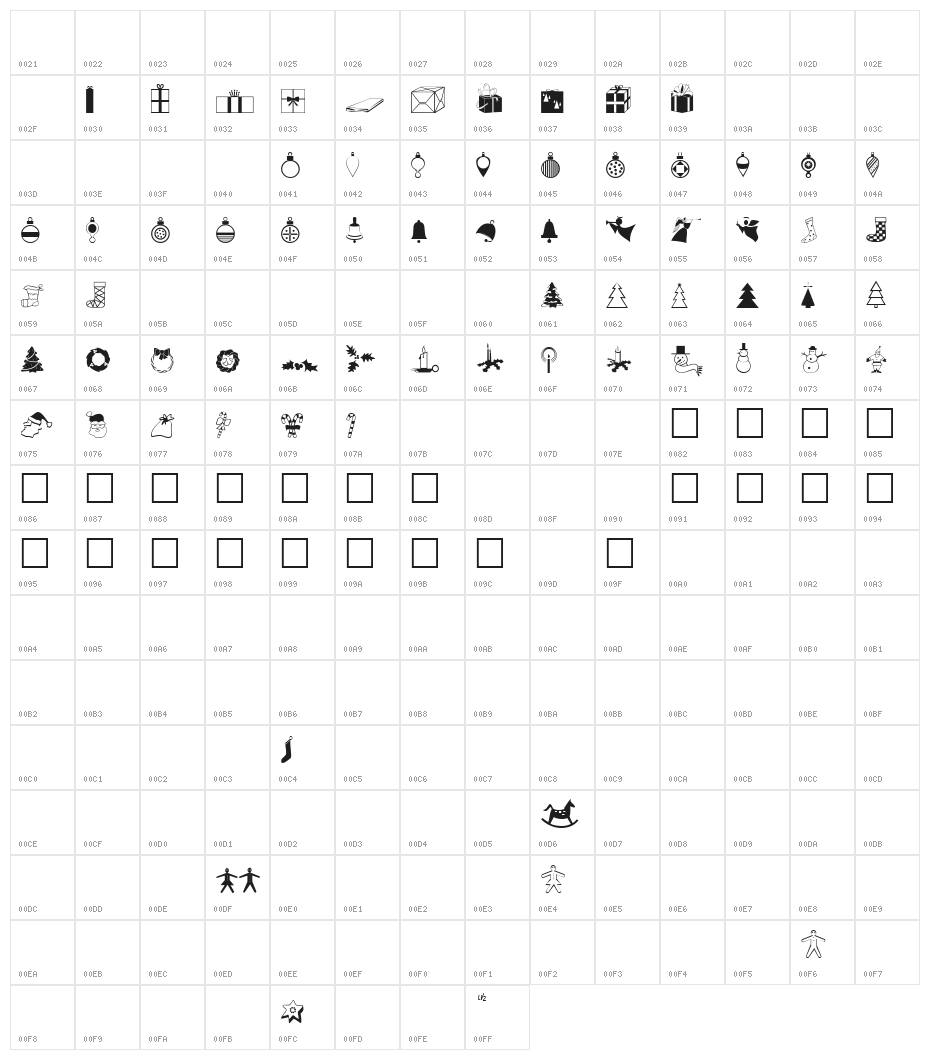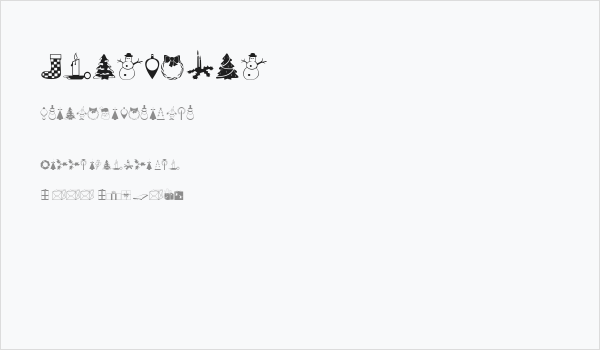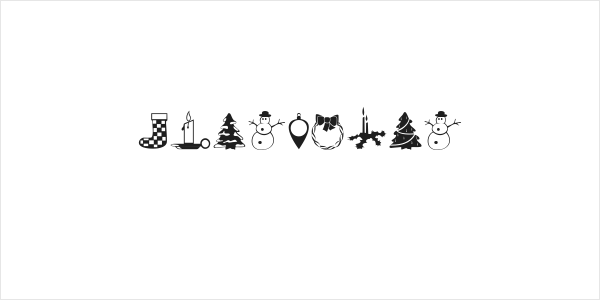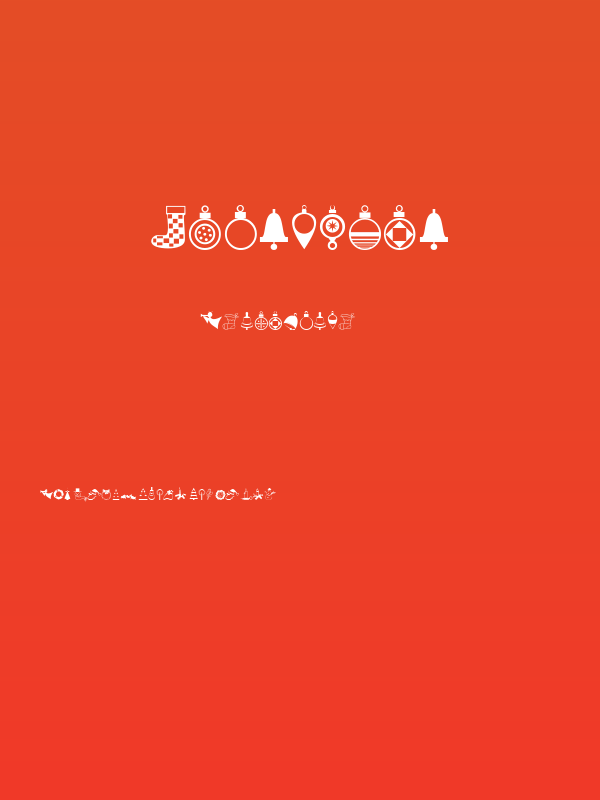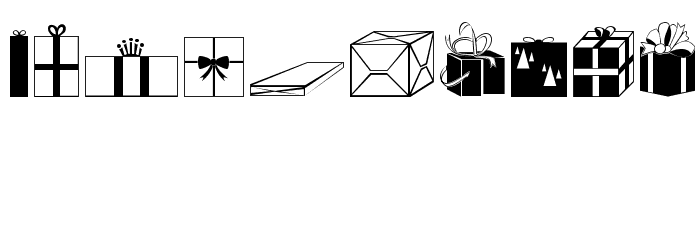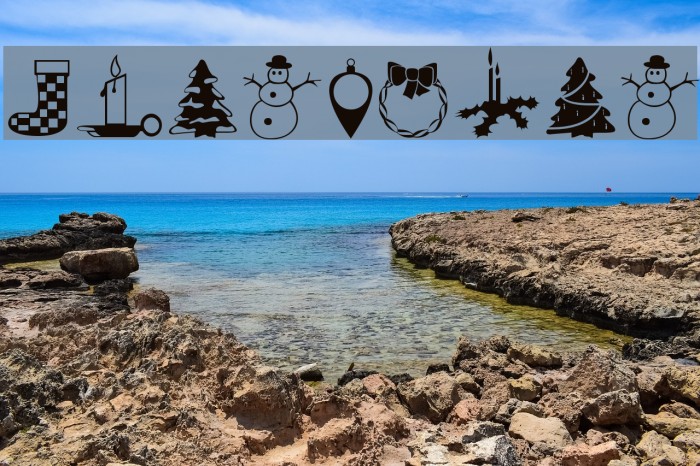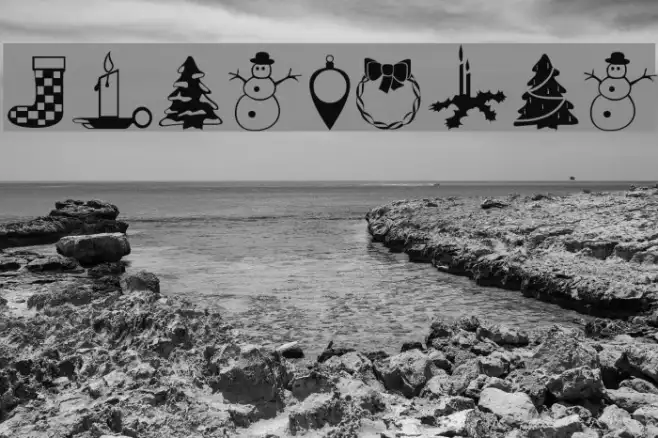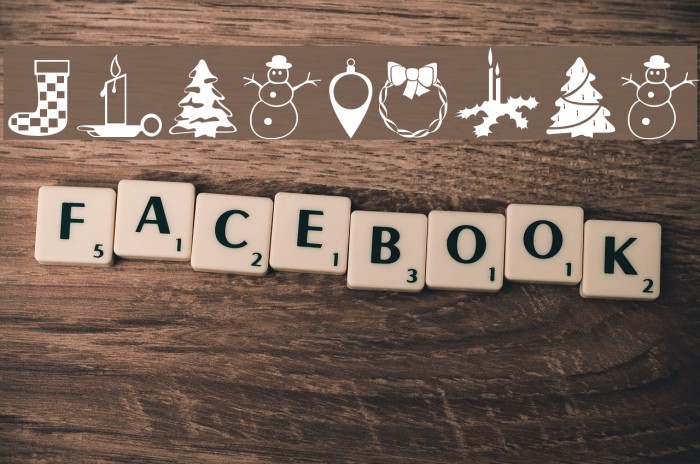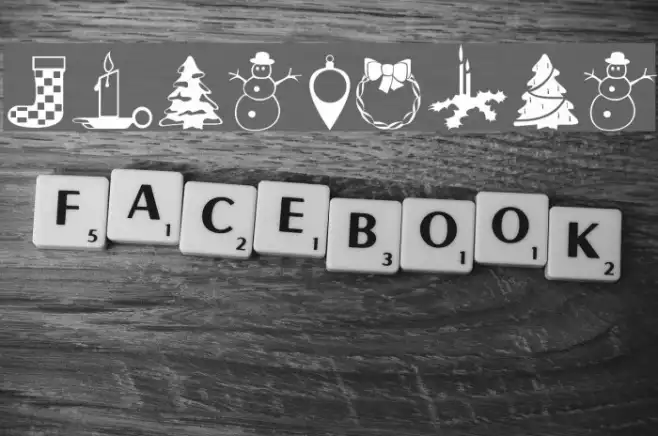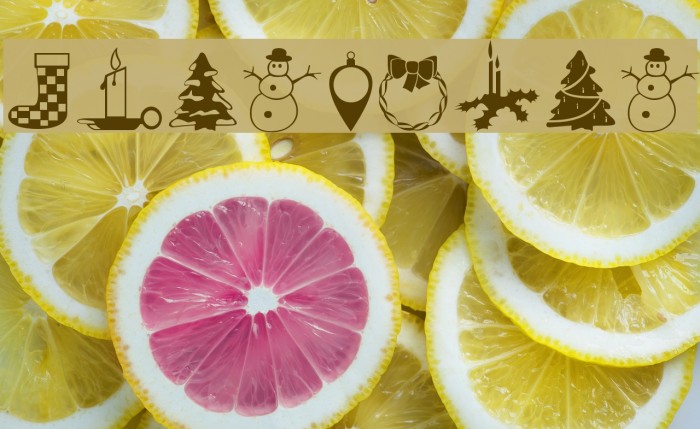
XmasDings Font
XmasDings Description
This collection features a variety of festive Christmas-themed icons, including ornaments, bells, angels, stockings, trees, wreaths, holly, candles, snowmen, Santa Claus, gifts, and candy canes. Each symbol is designed with a playful and decorative style, perfect for adding a holiday touch to any project. The icons are bold and clear, making them suitable for both digital and print media. The set captures the essence of Christmas with its whimsical and joyful designs, ideal for creating greeting cards, holiday invitations, or festive decorations.
| Use Case | Logos, Headlines, Decorative elements |
| Proposed Projects | Ideal for holiday greeting cards, festive invitations, seasonal decorations, and Christmas-themed digital content. |